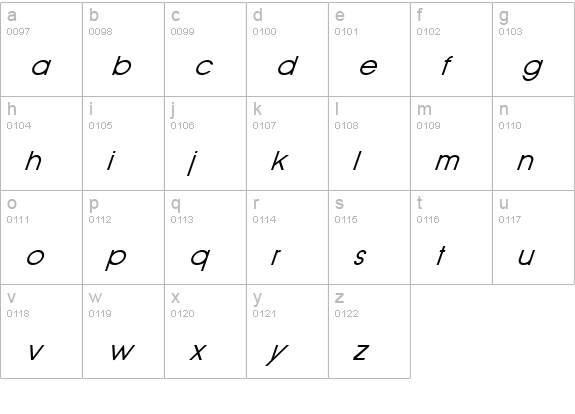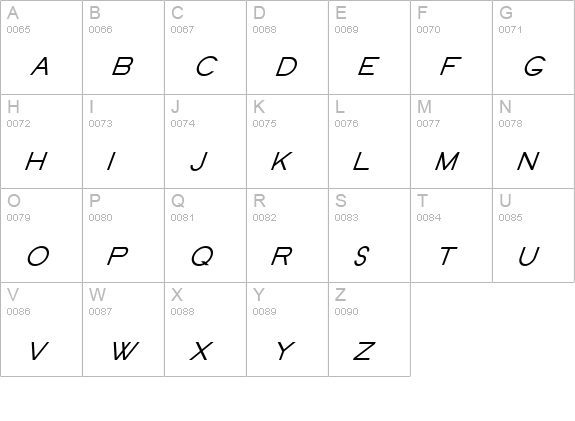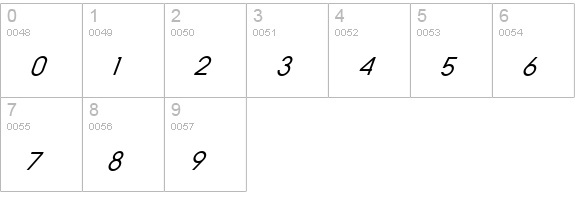
Old Republic Italic is a distinctive, italic variant in the Old typeface family \xE2\x80\x94 well suited to design and typography projects.
Old Republic Italic font is a stunning and versatile typeface that exudes elegance and sophistication. With its classic yet modern design, this font is perfect for adding a touch of style to any project. The italicized letters create a sense of movement and fluidity, making it ideal for use in a variety of design applications. What sets Old Republic Italic font apart is that it is not only visually appealing but also free to download. You can easily access this beautiful font at FontsMarket.com, where you can add it to your collection without any cost. Whether you're designing a website, creating a poster, or crafting a logo, Old Republic Italic font is sure to elevate your work and make a lasting impression. Don't miss out on this fantastic opportunity to enhance your designs with this exquisite font.